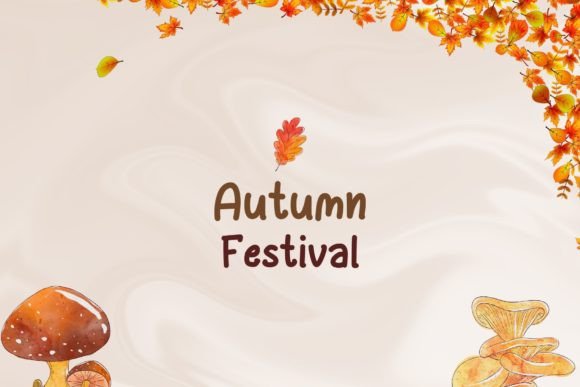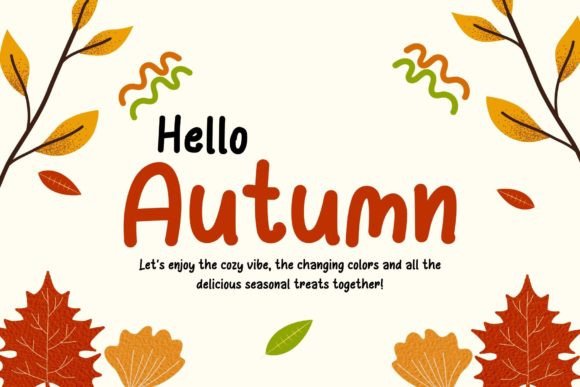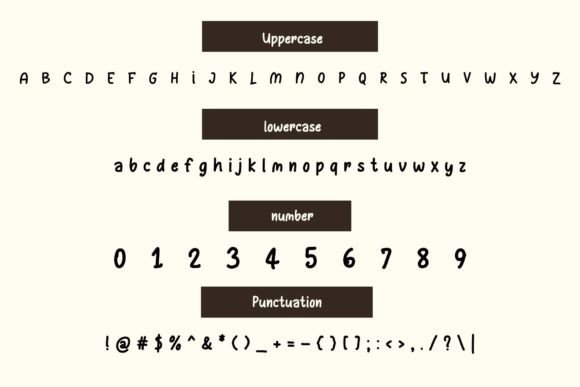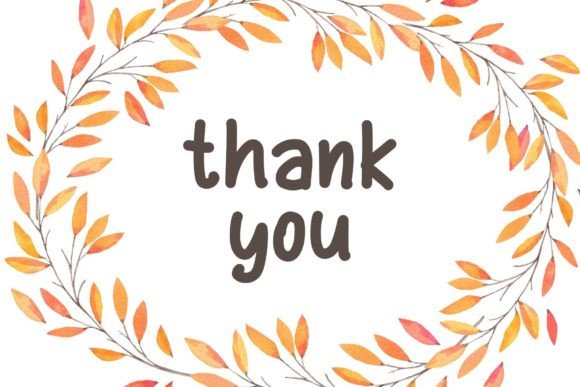
Evelyn Font: The Ultimate Handwritten Font for Creative Projects
Are you looking for a font that embodies playfulness and authenticity? Look no further than the Evelyn Font! This adorable handwritten font is perfect for designers, crafters, and DIY enthusiasts who want to add a personal touch to their projects. In this article, we’ll explore the features and benefits of the Evelyn Font and how it can elevate your creative endeavors.
What is Evelyn Font?
Evelyn Font is a beautiful, handwritten font that exudes a sense of playfulness and charm. Its unique and authentic style makes it an excellent choice for a wide range of projects, from blog posts and logos to branding, ads, invitations, greeting cards, planners, photo albums, decorations, and more. With Evelyn Font, you can add a touch of personality to your designs and make them stand out from the crowd.
Features of Evelyn Font
Evelyn Font comes with a range of features that make it a versatile and practical choice for designers and crafters. Some of its key features include:
- Handwritten style: Evelyn Font has a genuine handwritten look that adds a personal touch to your projects.
- Playful and authentic: The font’s playful and authentic style makes it perfect for creative projects that require a unique and eye-catching approach.
- Easy to read: Despite its handwritten style, Evelyn Font is easy to read and understand, making it suitable for body text and headings.
- High-quality design: The font is designed with high-quality craftsmanship, ensuring that it looks great in any context.
Benefits of Using Evelyn Font
So, why should you choose Evelyn Font for your projects? Here are some benefits of using this amazing font:
- Adds personality to your designs: Evelyn Font helps you add a personal touch to your designs, making them more relatable and engaging.
- Versatile: The font is suitable for a wide range of projects, from digital designs to print materials.
- Time-saving: With Evelyn Font, you can create stunning designs quickly and efficiently, saving you time and effort.
Project Ideas Using Evelyn Font
Evelyn Font is a versatile font that can be used in a variety of projects. Here are some ideas to get you started:
- Blog posts: Use Evelyn Font to add a personal touch to your blog posts and make them more engaging.
- Logos and branding: Create a unique and memorable logo for your brand using Evelyn Font.
- Invitations and greeting cards: Add a touch of elegance and sophistication to your invitations and greeting cards with Evelyn Font.
- Planners and journals: Use Evelyn Font to create beautiful and functional planners and journals.
- Decorations: Add a personal touch to your decorations, such as party banners, signs, and wall art, with Evelyn Font.
Tips for Using Evelyn Font
Here are some tips for using Evelyn Font effectively:
- Pair with other fonts: Experiment with pairing Evelyn Font with other fonts to create a unique and eye-catching combination.
- Use in different colors: Try using Evelyn Font in different colors to add visual interest to your designs.
- Experiment with sizes: Play around with different font sizes to create visual hierarchy and emphasis in your designs.
Evelyn Font is a beautiful and versatile handwritten font that can elevate your creative projects. With its playful and authentic style, ease of use, and high-quality design, it’s perfect for designers, crafters, and DIY enthusiasts. Whether you’re working on a blog post, logo, invitation, or decoration, Evelyn Font is sure to add a personal touch and make your designs stand out. So why wait? Download Evelyn Font today and start creating stunning designs!